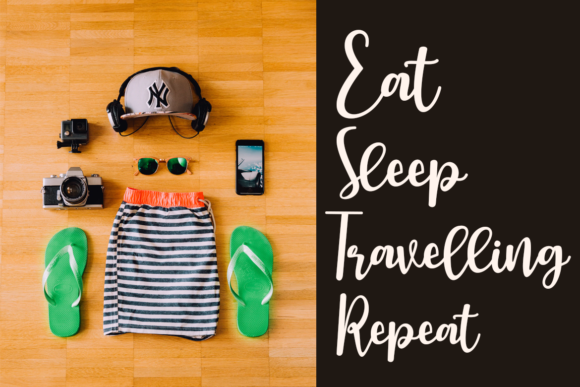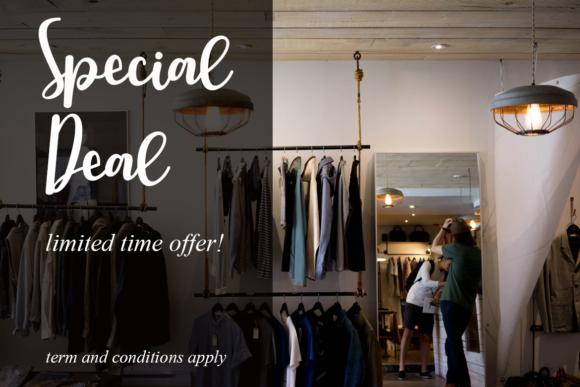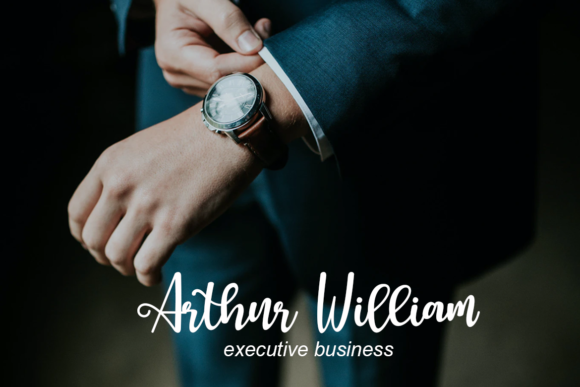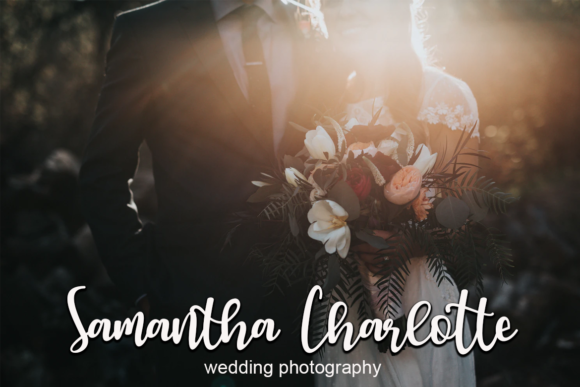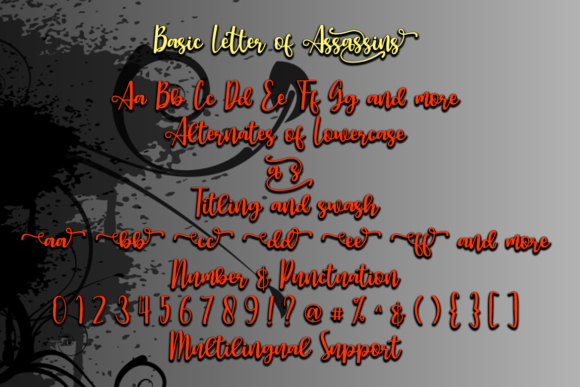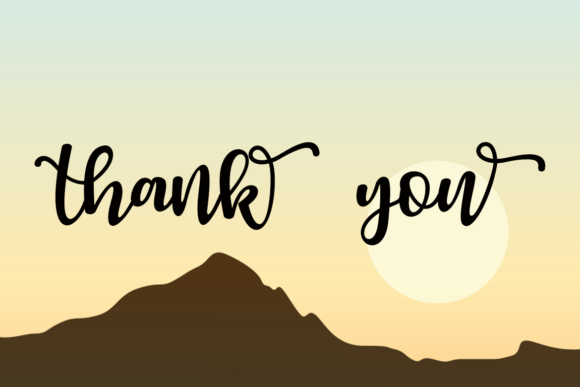
Introducing Assasins Font: A Beautiful Handwritten Font for Your Creative Projects
Are you a designer or crafter looking for a unique and romantic font to add a touch of elegance to your designs? Look no further than Assasins Font, a stunning handwritten font created with the help of a joyful brush pen. This beautiful font is perfect for a variety of creative projects, including invitations, thank you cards, quotes, greeting cards, logos, and more.
What Makes Assasins Font So Special?
Assasins Font is a one-of-a-kind font that is sure to capture the hearts of designers and crafters alike. Here are just a few features that make it so special:
- Handwritten with love: Assasins Font was created with the help of a joyful brush pen, giving it a unique and personal touch.
- Romantic and trendy: This font has a romantic and trendy vibe that’s perfect for designers who want to add a touch of elegance to their designs.
- PUA encoded: Assasins Font is PUA encoded, which means you can access all of the glyphs and swashes with ease.
Perfect for a Variety of Creative Projects
Assasins Font is a versatile font that can be used for a wide range of creative projects, including:
- Invitations: Whether you’re planning a wedding, birthday party, or other special event, Assasins Font is the perfect choice for your invitations.
- Thank you cards: Add a personal touch to your thank you cards with this beautiful handwritten font.
- Quotes: Use Assasins Font to add a touch of elegance to your quotes and sayings.
- Greeting cards: Create beautiful greeting cards for any occasion with this lovely font.
- Logos: Assasins Font is also perfect for logos and branding, adding a touch of sophistication and elegance to your designs.
Why Choose Assasins Font?
There are many fonts to choose from, but Assasins Font stands out from the rest. Here are just a few reasons why you should choose this beautiful font for your next project:
- Unique and exclusive: Assasins Font is a one-of-a-kind font that will set your designs apart from the rest.
- Easy to use: This font is PUA encoded, making it easy to access all of the glyphs and swashes.
- High-quality design: Assasins Font was created with attention to detail, ensuring a high-quality design that will impress your clients or audience.
Tips for Using Assasins Font
Here are a few tips for using Assasins Font in your designs:
- Pair it with other fonts: Experiment with pairing Assasins Font with other fonts to create a unique and interesting design.
- Use it for headings and titles: This font is perfect for headings and titles, adding a touch of elegance and sophistication to your designs.
- Experiment with colors and textures: Don’t be afraid to experiment with different colors and textures to add depth and interest to your designs.